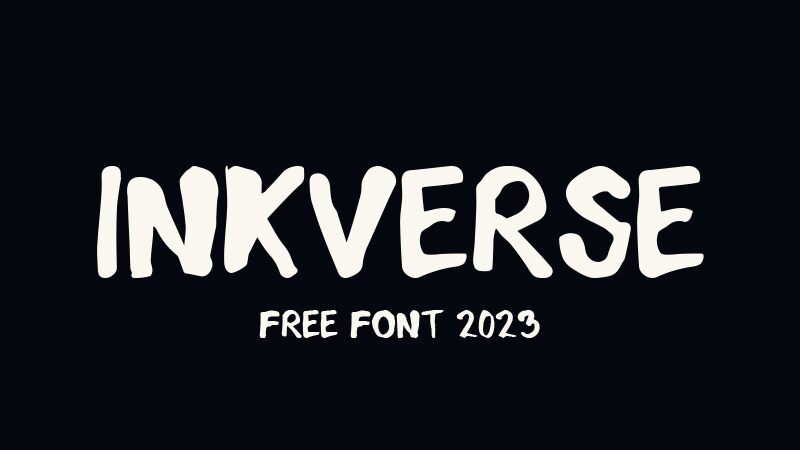
InkVerse, designed by GGBotNet, is a bold brush font that carries the spontaneity and vivacity of hand-painted characters onto the digital canvas. Its robust weight and expressive style lend it an aesthetic appeal that captures the eye and heart of viewers. The dynamic strokes suggest a sense of movement and creativity, making InkVerse ideal for projects that require a touch of personal flair.
The brush style imbues each glyph with unique textural details reminiscent of ink on paper, offering designers an authentic handcrafted feel. This makes InkVerse perfectly suited to artistic endeavors such as compelling branding, attention-grabbing advertising, evocative editorial designs, or any creative project that benefits from a stroke of individuality.
InkVerse's boldness ensures readability at various sizes while maintaining a strong visual impact. Whether used in large headers or smaller supporting text, its distinctive character shines through. Embrace InkVerse for its blend of sophistication and spirited charm to elevate your design work with an unmistakable personality.